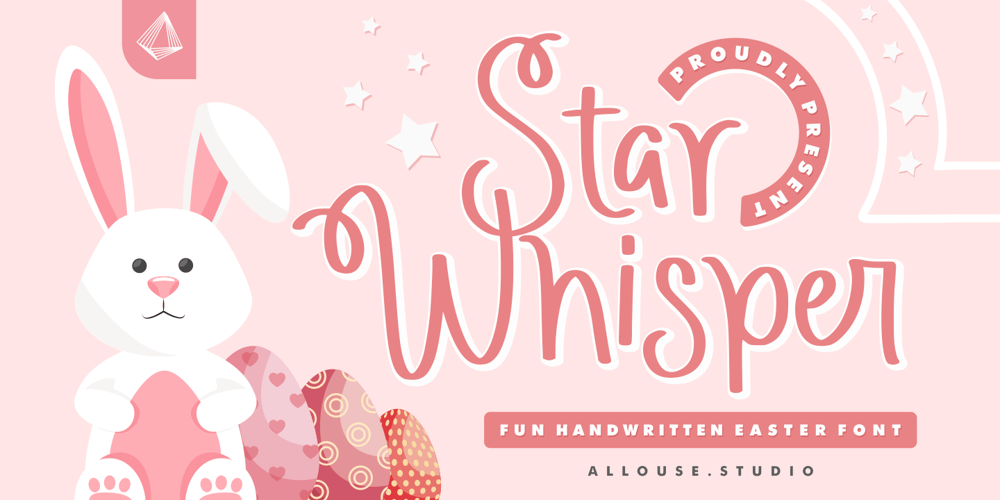
Star Whisper
Star Whisper font
Star Whisper Font Family was designed by Fachrizal Yusuf and published by Allouse Studio. Star Whisper contains 1 styles and family package options. Star Whisper a Fun Handwritten Easter Font that will bring joy to your Easter Season.Star Whisper is perfect for any tittles, logo, product packaging, branding project, megazine, social media, wedding, or just used to express words above the background.Star Whisper also come with Multi-Lingual Support.Enjoy the font, feel free to comment or feedback, send me PM or email. Thank You!